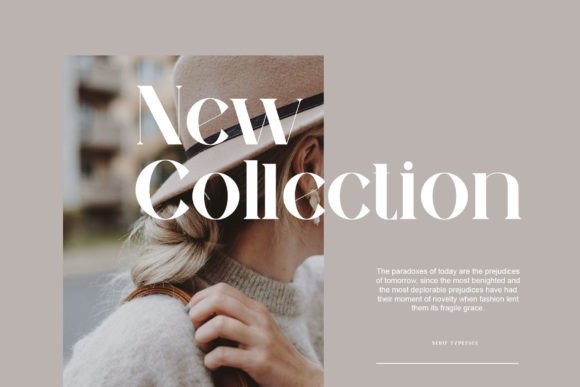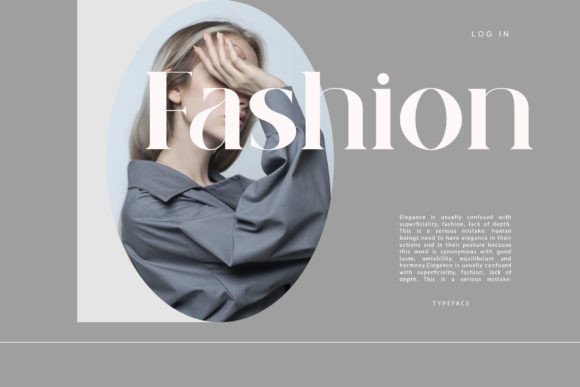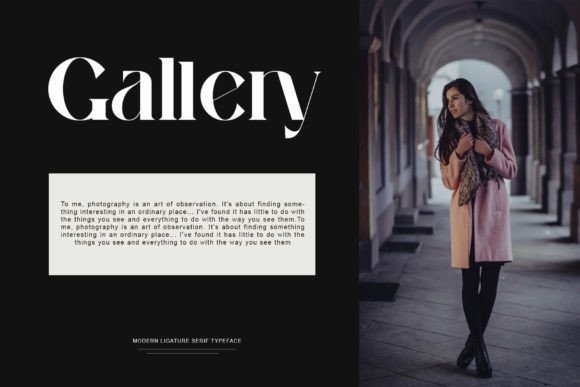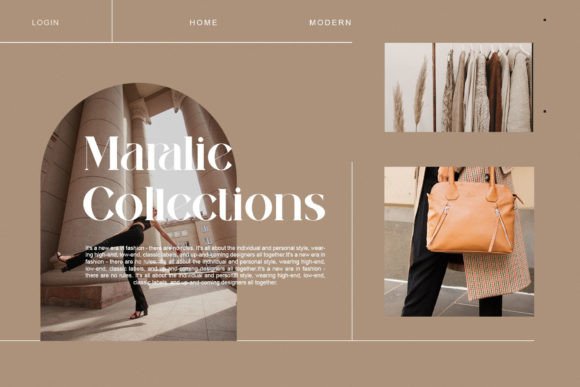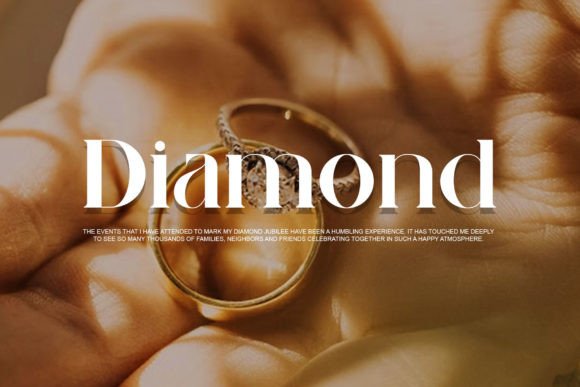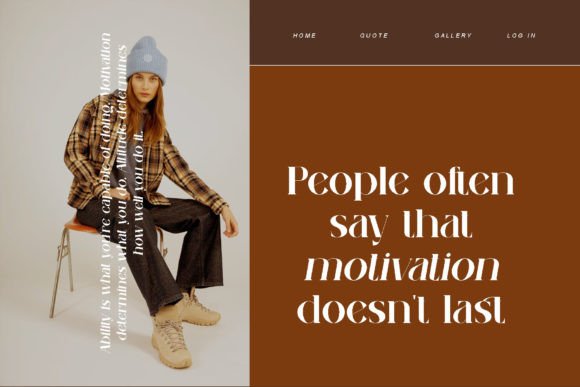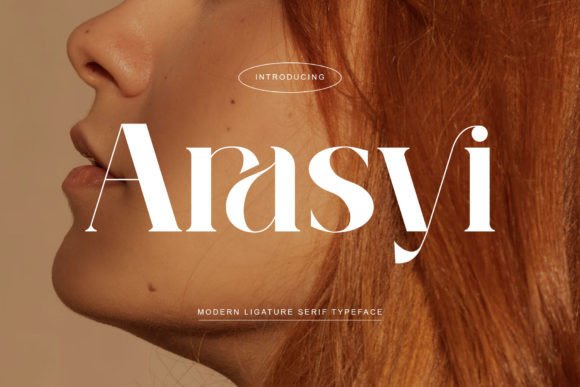
The Elegance of Arasyi Font: A Designer’s Delight
I’ll never forget the time I was working on a wedding invitation project, and my client asked for a font that exuded elegance and sophistication. I scoured the internet, tried countless fonts, but nothing seemed quite right. That was until I stumbled upon the Arasyi Font. Its graceful curves and sharp serifs immediately caught my attention, and I knew I had found the perfect fit. In this article, I’ll share with you my love for this beautiful serif font, its features, and how to make the most of it in your designs.
- ✨ Elegant and classy design that adds a touch of sophistication to any project
- 💫 Perfect for a variety of design projects, from wedding invitations to high-end branding
- 🔍 Highly legible, even at small font sizes
While Arasyi Font is an excellent choice for many design projects, there are a few things to keep in mind:
- ⚠️ Some users may find the font a bit too ornate for certain projects, such as body text or casual social media posts
- 🤔 Limited availability of certain characters or glyphs, although PUA encoding makes it easy to access most
The Backstory of Arasyi Font
Arasyi Font was designed with the intention of creating a beautiful, elegant, and refined serif font that would add a touch of sophistication to any design project. Inspired by classic typography and modern design principles, Arasyi Font is the perfect blend of traditional and contemporary design.
A: PUA (Private Use Area) encoding allows designers to access a wide range of glyphs and special characters, making it easier to create unique and customized designs.
Q: Is Arasyi Font suitable for body text?
A: While Arasyi Font is highly legible, it may be a bit too ornate for extended body text. However, it’s perfect for headings, titles, and short paragraphs.